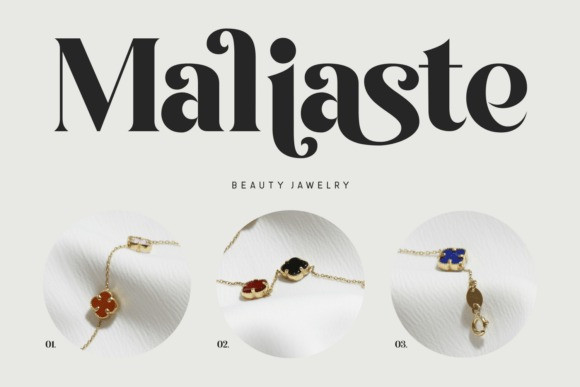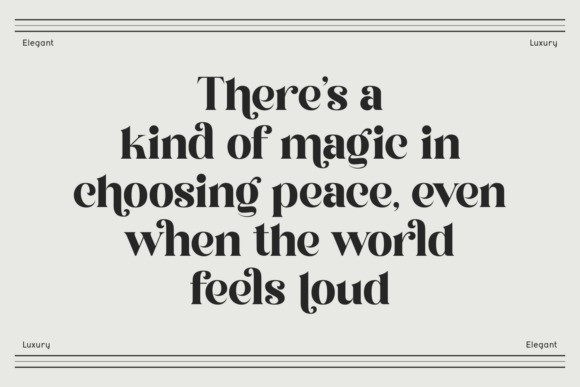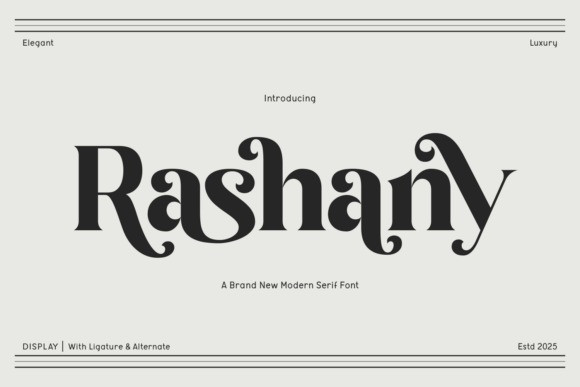
Rashany Font
Rashany Font a new modern serif font from 2025. Described as an “Elegant” and “Luxury” display font, it features unique ligatures and alternate characters, making it ideal for high-end branding, logos, and mastheads.